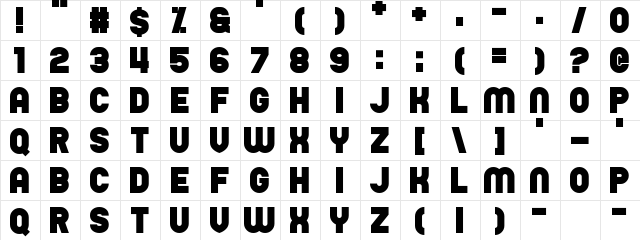
Unability Regular
| Designer | NAL |
Unability offers clean, dependable letterforms without strong stylistic allegiance, making it a practical choice for designers who need flexibility.